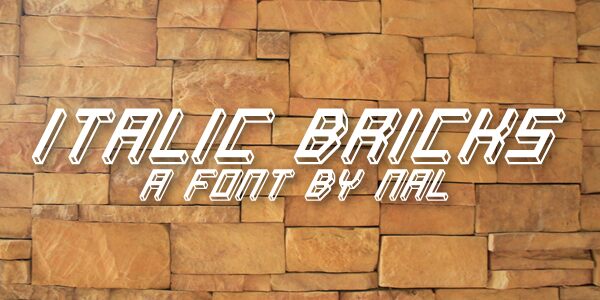
Italic Bricks by NAL of FSI FontShop International GmbH is a free techno 3D display font with steeply slanted, architectural capitals. Its broad strokes are cut by sharp interior facets, and offset edges create a deep extruded effect with narrow white highlights. The forms feel fast and mechanical.
As a ready-made futuristic sign, the lettering suits arcade branding, motorsport posters, electronic music packaging, and science-fiction game graphics because the beveled forms resemble fabricated metal signage. Its angular depth can also become part of magazine cover art, turning a title into an illustrated structure rather than a neutral line of type.